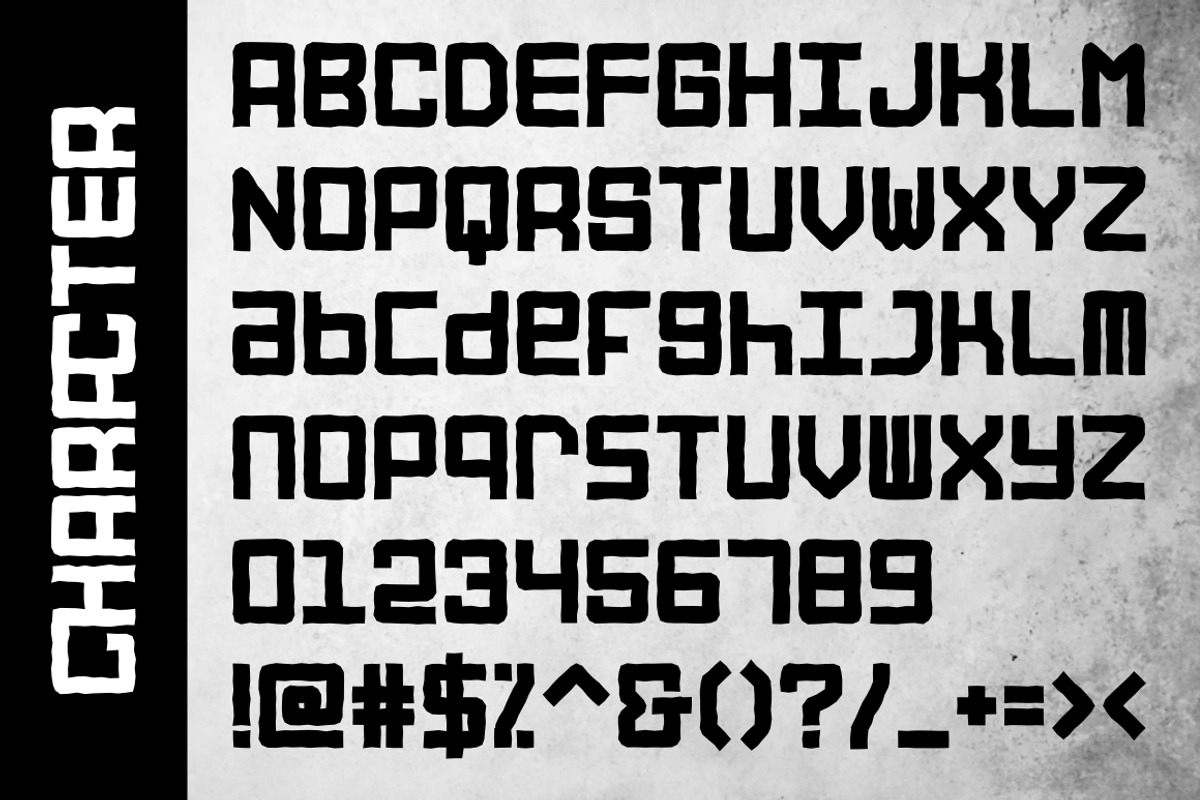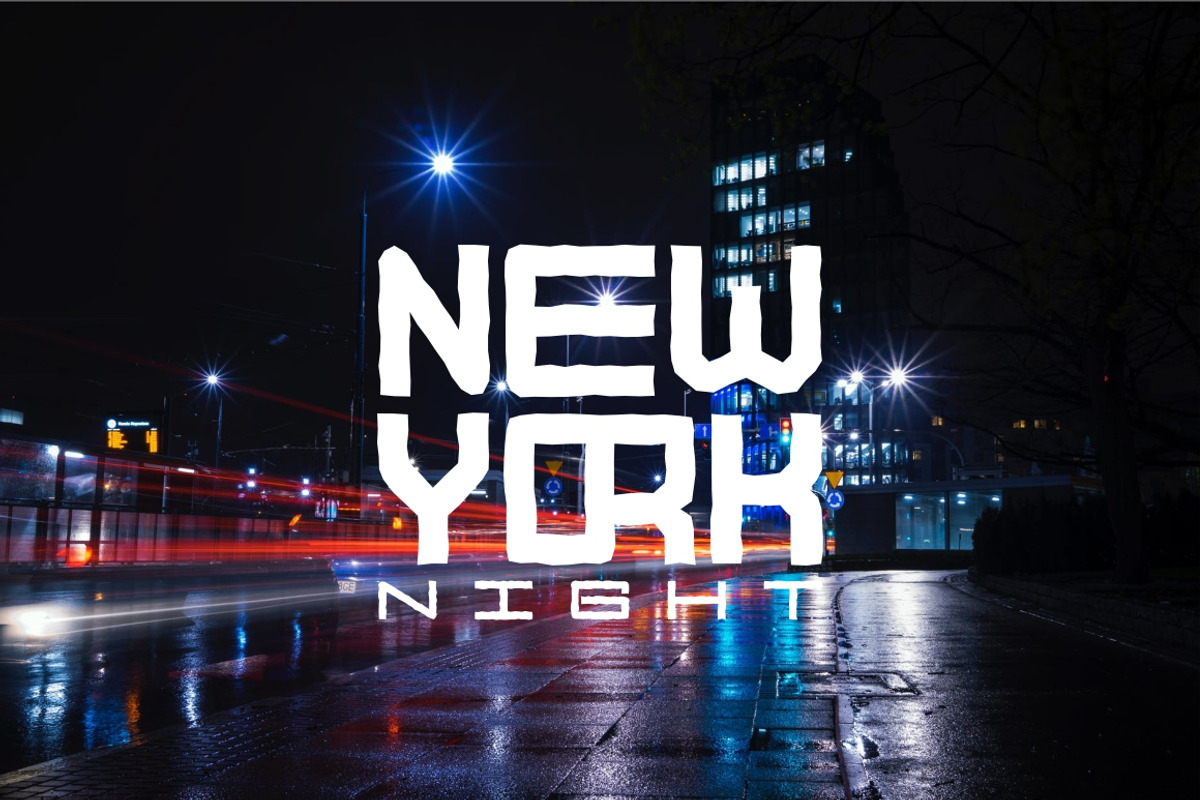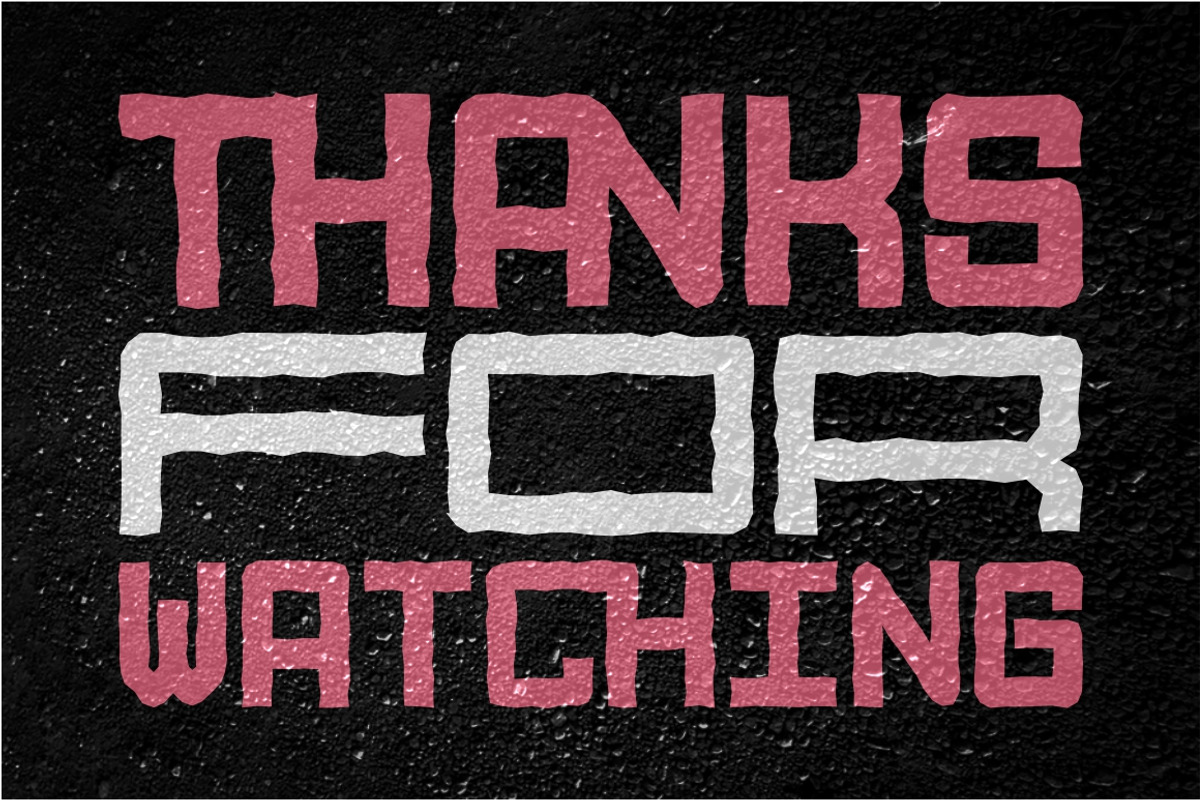
STREET ROAD
Introducing STREET ROAD, a display font has 3 different width types (as alternates). This font has two styles : rough and clean. And there are also lots of ligature that will make this font more unique. STREET ROAD is perfect for branding design, logo, posters, apparel, for logotype, website header, fashion design and any more.